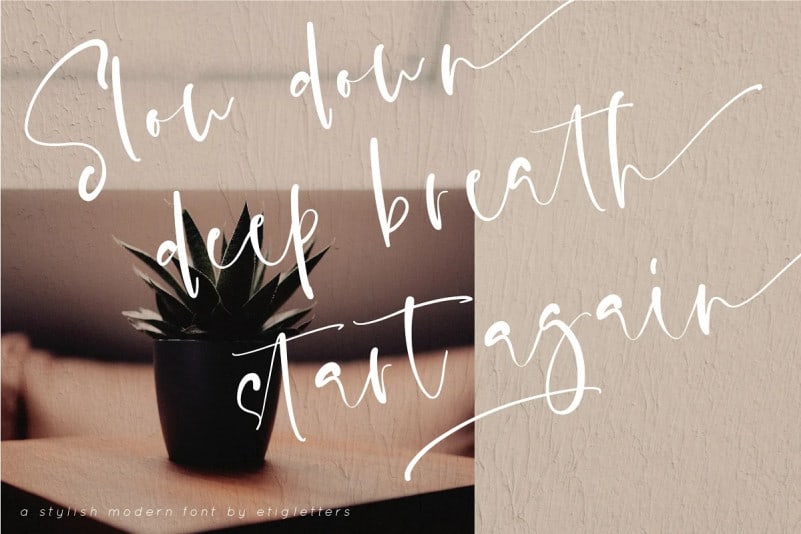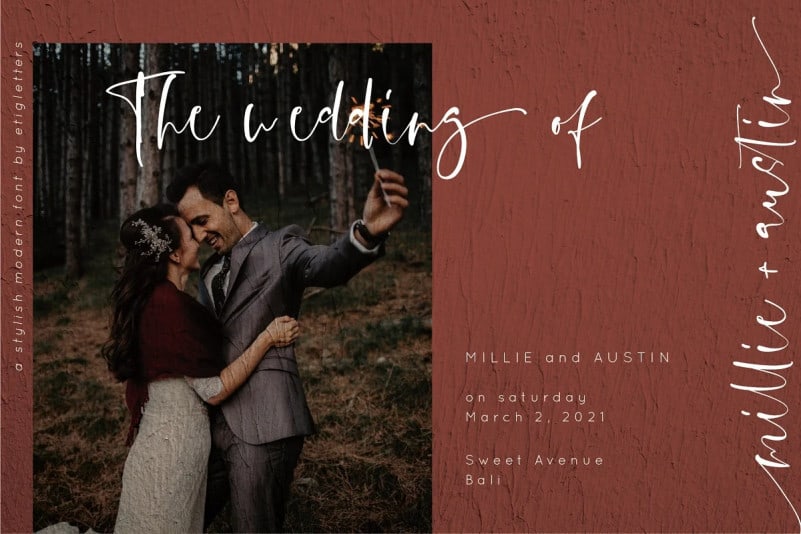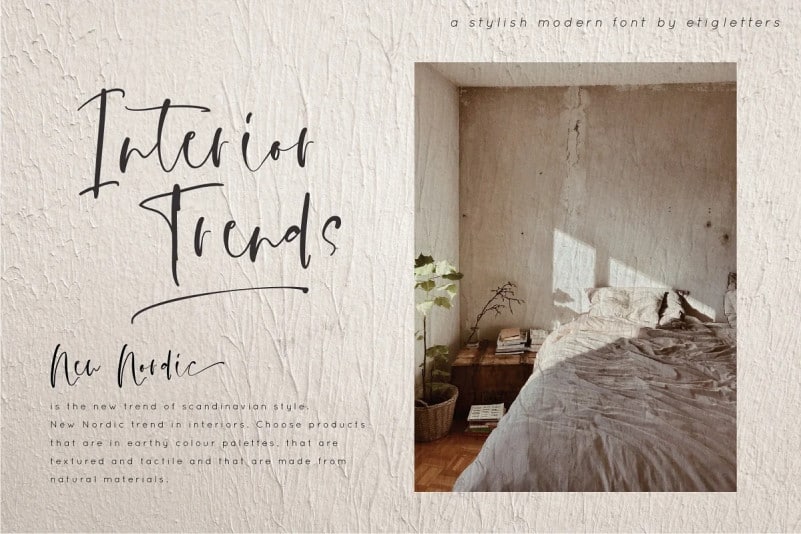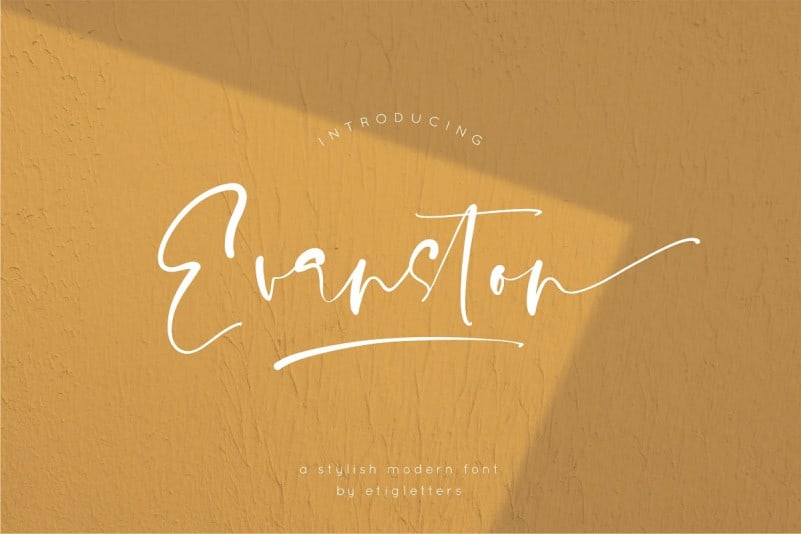
Evanston Script Font
Evanston Script Font is a delicate, elegant and flowing hand-drawn typeface. It has beautiful and well balanced characters and as a result, it matches a wide pool of designs. Evanston is a handmade modern font created by etigletters with stylish look. It can be used for website, branding, wedding stuff and etc.